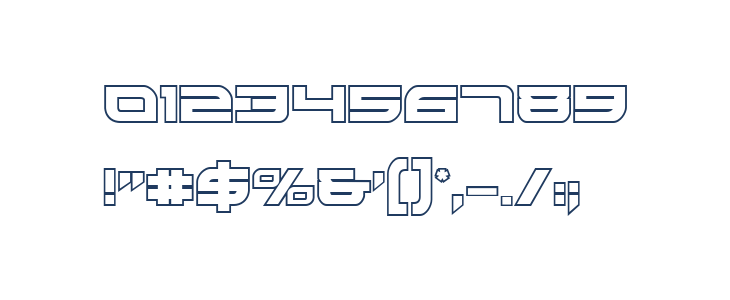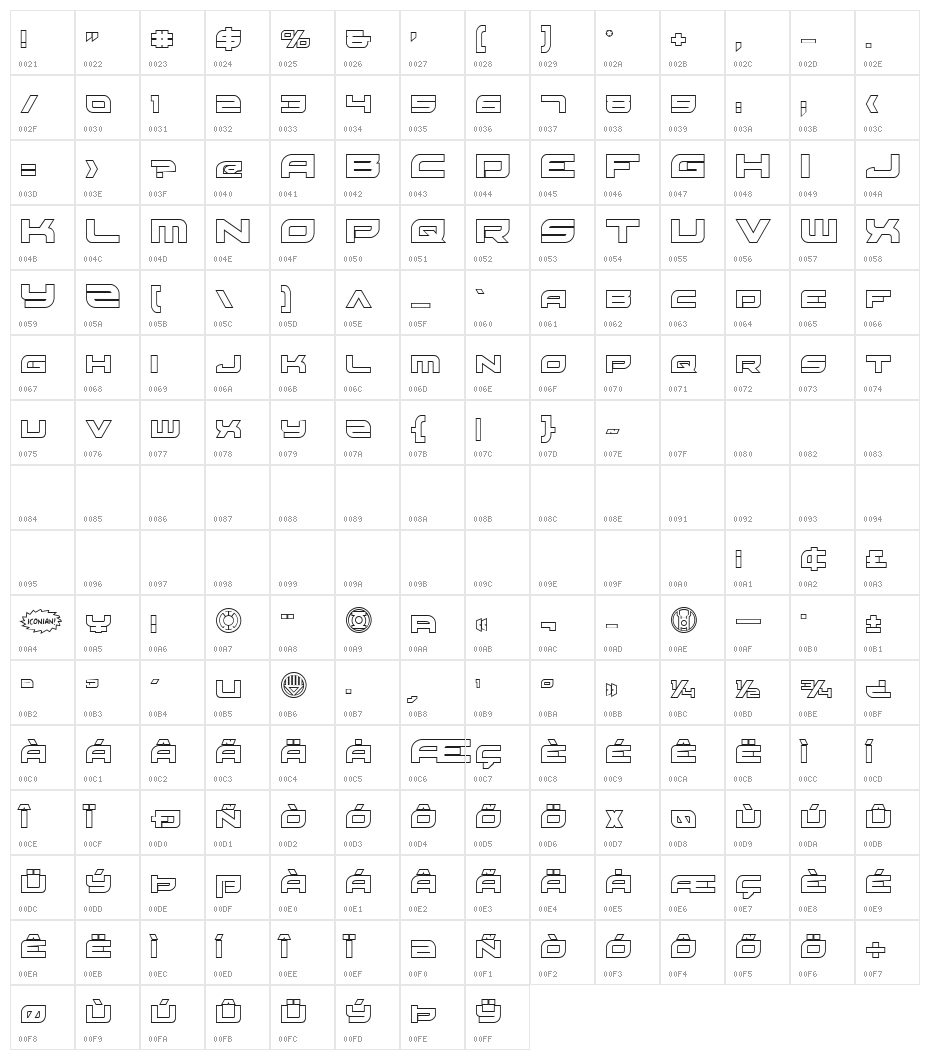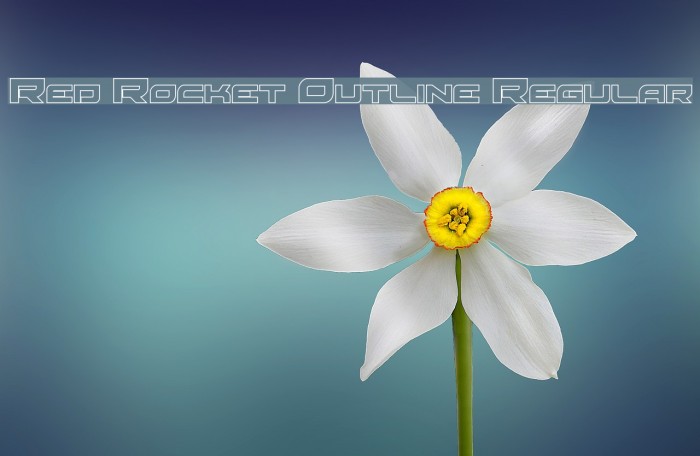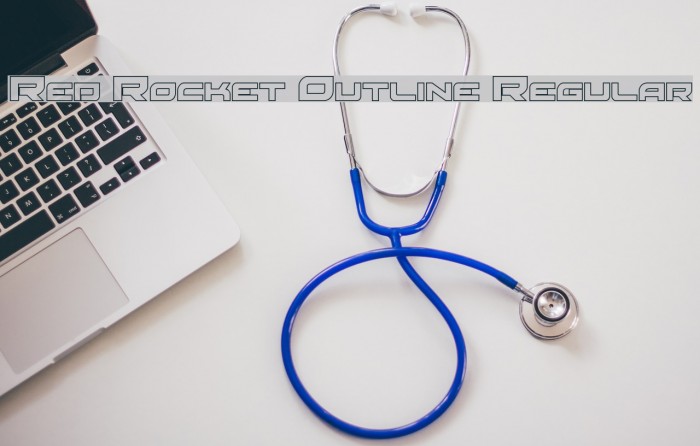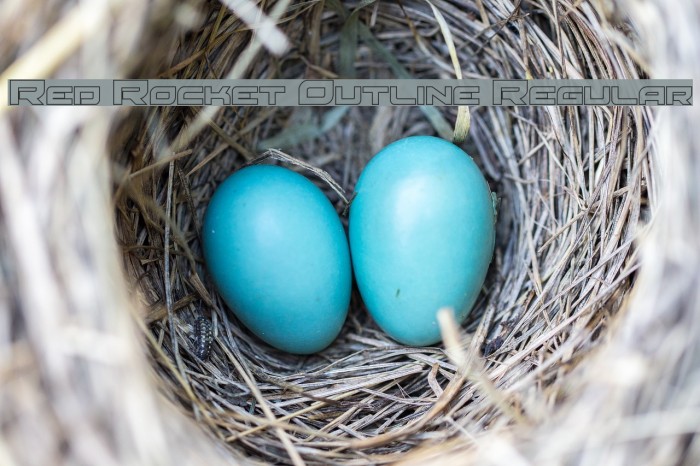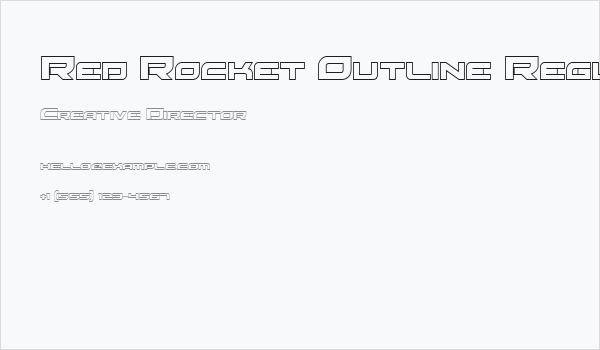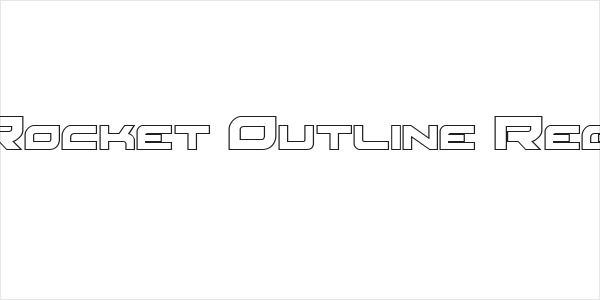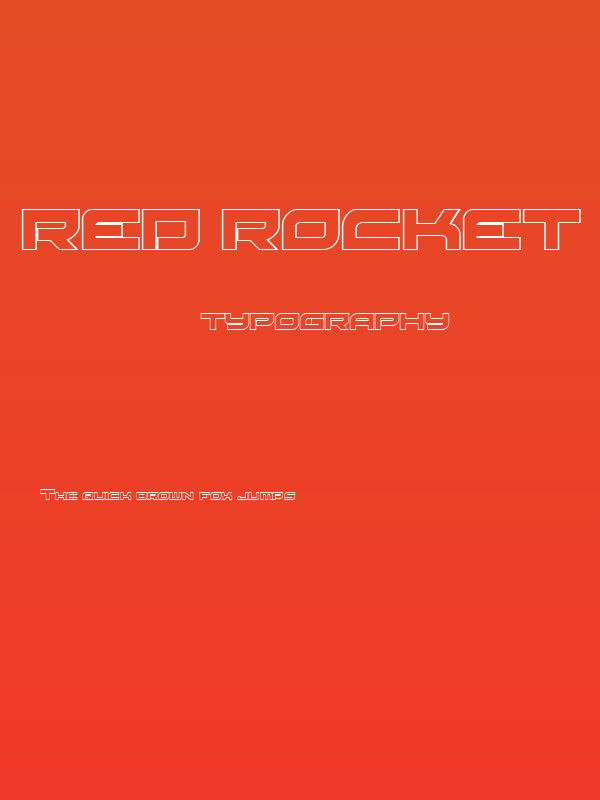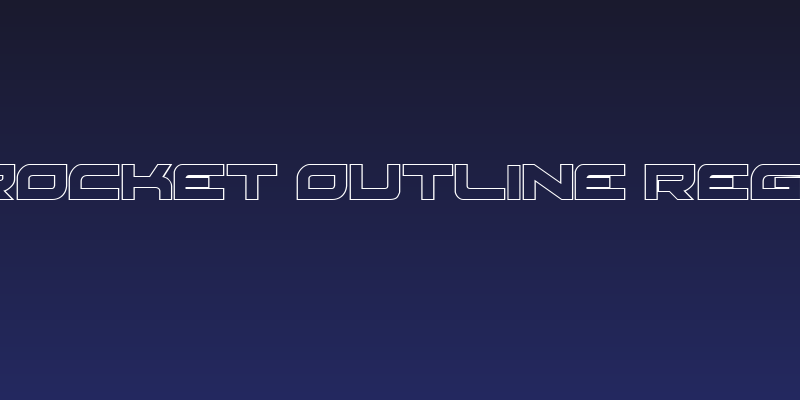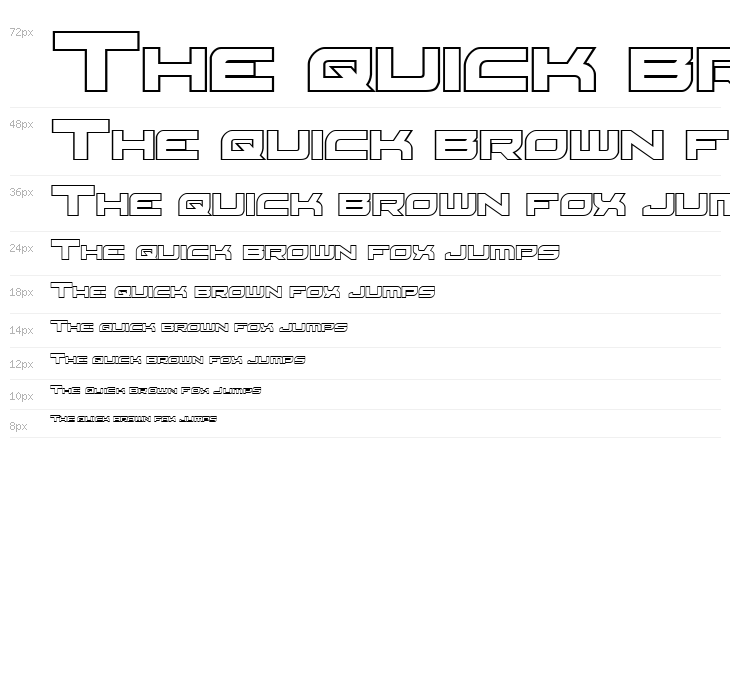
Red Rocket Outline Regular Font
Red Rocket Outline Regular Description
This font features a modern, futuristic design with an outline style that gives it a unique, airy appearance. The characters are geometric and angular, with a consistent stroke width that maintains clarity and readability. The uppercase letters have a strong presence, while the lowercase letters mirror the uppercase in style, maintaining uniformity. Numbers and special characters are designed to match the overall aesthetic, making this font versatile for various applications. The outline nature of the font adds a layer of sophistication and can be used effectively in designs that require a contemporary and sleek look.
| Proposed Projects | Ideal for branding, posters, digital media, and futuristic-themed designs. |